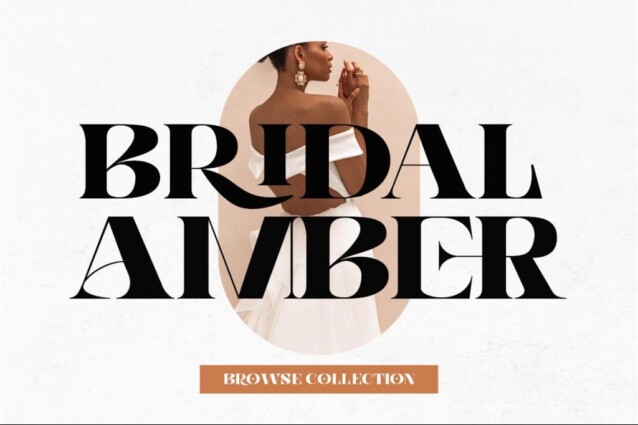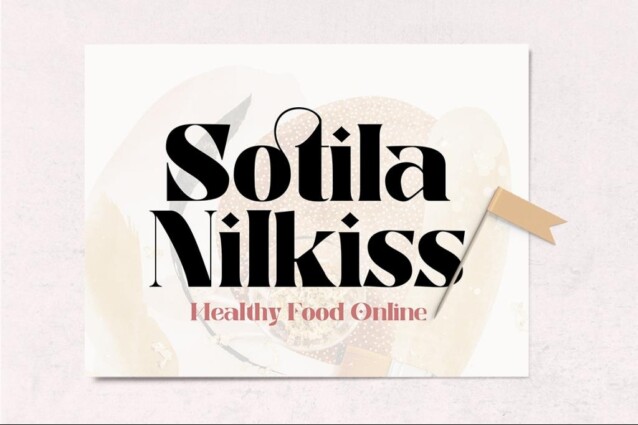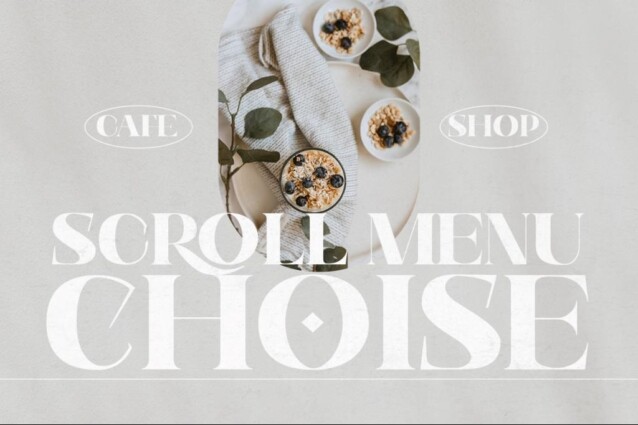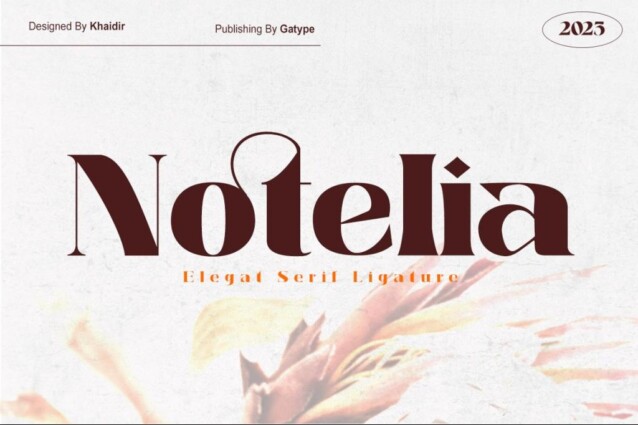
Notelia Font
Notelia Font is a bold and expressive typeface that channels the spirit of funk and creativity. Inspired by today’s beautiful serif look. Includes uppercase letters, numbers, and a wide variety of punctuation marks. Serif font with a modern style. Made for posters, web design, branding, illustrations, badges and many other works.